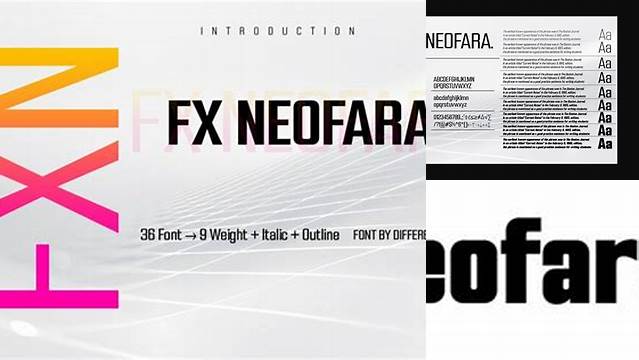
Hey guys! Are you on the hunt for that perfect font to give your projects a sleek and modern edge? Look no further! We're diving deep into the world of FX Neofara Medium, a font that's been making waves in the design community. This comprehensive guide will walk you through everything you need to know about this fantastic typeface, from its unique features to where you can snag it for free. Let’s get started!
1. What is FX Neofara Medium Font?
FX Neofara Medium font is a contemporary typeface known for its clean lines and geometric structure. It's designed to be versatile, making it a solid choice for a wide range of projects. FX Neofara Medium stands out with its balanced letterforms and excellent readability, whether you’re working on a website, a branding project, or print materials. The font’s modern aesthetic ensures it remains relevant and stylish, blending functionality with a unique visual appeal. Its design makes it easy on the eyes, crucial for lengthy texts, while its distinct character adds personality to shorter pieces like logos and headings. The font’s adaptability is one of its greatest strengths, fitting seamlessly into both professional and creative contexts. When you're considering fonts, FX Neofara Medium should definitely be on your radar. It brings a level of sophistication to any design, making your work stand out in a polished and professional way. You can really see how the thoughtful design enhances the overall look and feel of your projects, making FX Neofara Medium a true asset in your typographic toolkit. So, if you want a font that can keep up with your creative vision, this is a great one to consider. Trust me, guys, it's worth the hype!
2. Key Features of FX Neofara Medium
When we talk about what makes FX Neofara Medium special, several key features come to mind. The font boasts a modern, sans-serif design that’s both clean and contemporary. Its geometric shapes give it a structured yet approachable feel, perfect for various applications. One of the standout aspects is its exceptional readability; the carefully crafted letterforms ensure that text remains clear and legible, no matter the size or context. This is super important, especially for body text where you want your message to be easily understood. Another notable feature is its versatility. FX Neofara Medium can seamlessly transition from headlines to body text, from websites to print materials, making it a true workhorse in your font library. The balanced proportions and consistent strokes create a harmonious visual rhythm, enhancing the overall aesthetic appeal. Plus, it often includes a wide range of weights and styles, giving you the flexibility to create visual hierarchy and emphasis in your designs. Seriously, guys, having a font that can do it all is a game-changer. The attention to detail in FX Neofara Medium is evident in every glyph, reflecting the designer’s commitment to quality and usability. You'll find that it brings a level of polish and sophistication to your work that other fonts simply can't match. So, whether you’re designing a logo, a website, or a brochure, FX Neofara Medium has the features you need to make your project shine.